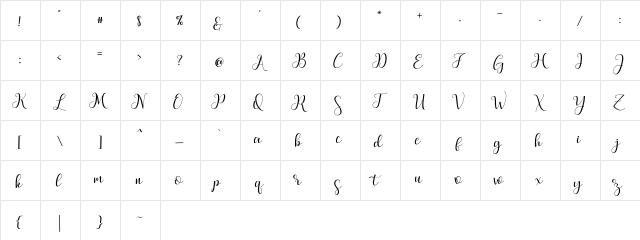
Marchy Script Regular
| Foundry | pointlab studio |
| Designer | pointlab studio |
Design Context for Marchy Script Typeface
Marchy Script brings a calligraphic fluidity to the page — its connecting strokes and expressive curves give it an unmistakably human quality.
Font Pairing: Combine Marchy Script with a simple geometric sans for maximum contrast — the tension between flowing curves and clean structure is a classic typographic pairing.
Pro Tip: Use Marchy Script for short runs of text — names, titles, or taglines. Extended body copy in script faces tires the eye quickly.